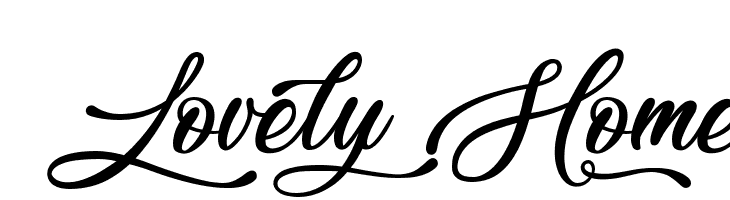
A delicate, flowing script font with elegant, elongated letterforms.
An elegant, flowing script font with intricate loops and flourishes.
An elegant and flowing script font with intricate swirls and loops.
A charming and elegant script font with flowing, cursive letterforms.